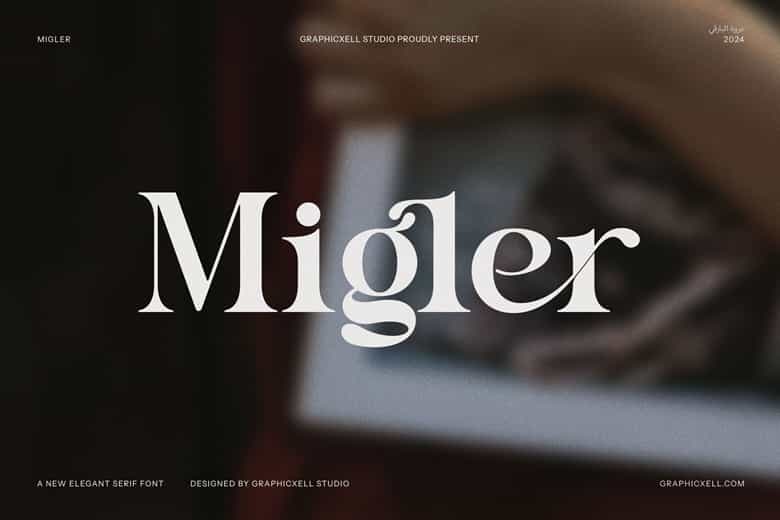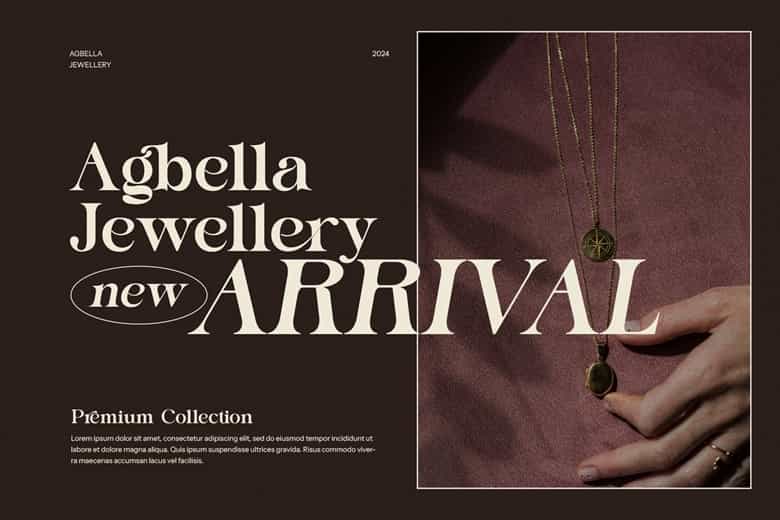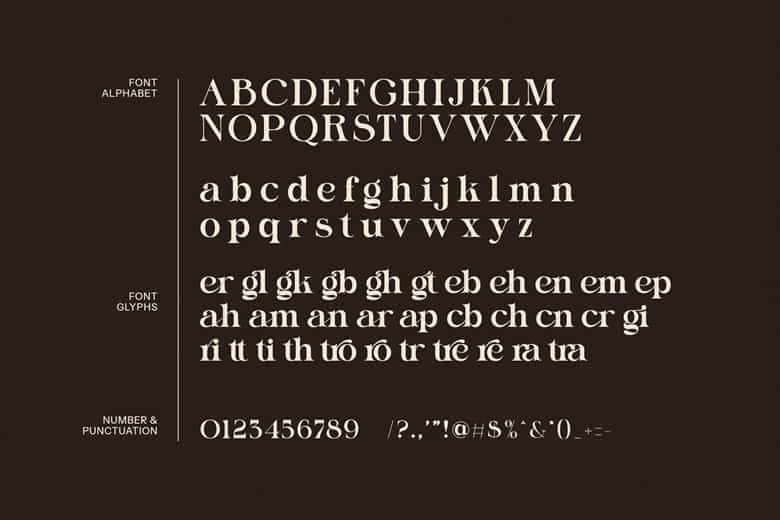
Migler is a fresh font that features a new and more authoritative serif typography. However it looks simple therefore the font looked appropriate or suitable for the formal design. The first thing that stands out is the use of the front design, making the real thing stand out. Due to its strong mechanical performance, it offers a great value for your money in your project. However, the solid design really adds much value to your projects since aesthetics are important in visual projects.